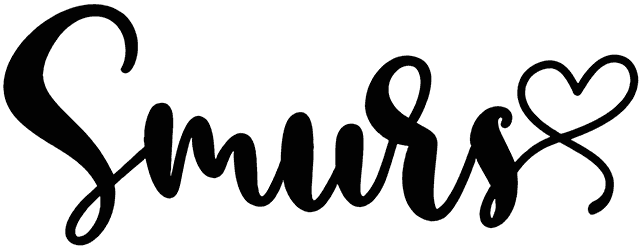
Brittany Font
This time, let’s enrich your novel design with a modern and elegant style. As a handwritten font, Brittany has a casual and nice letterform that would be harmonized with any formal or informal project. With an almost full cover of characters, this calligraphy font will be a unique display for various layouts, from business cards to Instagram posts.